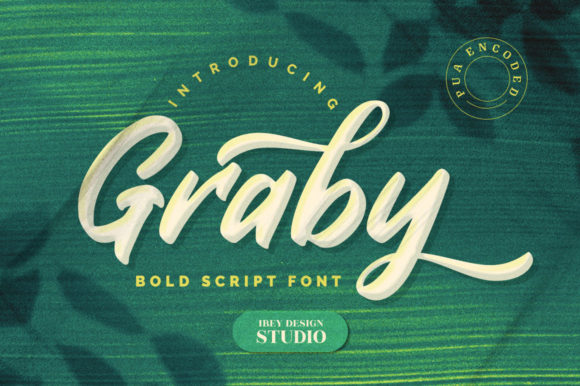
Graby Script Font
Behold Graby Script Font, the epitome of elegance and charm in the realm of typography. Step into a world where every letter dances with grace and finesse, creating a visual symphony that captivates the senses. Graby Script's enchanting strokes evoke the essence of handwritten bliss, transforming ordinary text into a work of art.
Unleash the power of Graby Script and watch your designs flourish with a touch of sophistication. Whether you're crafting heartfelt wedding invitations, expressing gratitude with thank-you cards, or imbuing life into captivating quotes, Graby Script is your trusted companion. Its versatility extends to greeting cards, logos, business cards, and any project yearning for a personal touch.
With Graby Script, the boundaries of creativity dissolve, and endless possibilities unfold. Bask in the glory of its PUA encoding, granting you effortless access to an array of glyphs and swashes. Let your imagination soar as you seamlessly integrate these elements into your designs, adding layers of visual intrigue and depth.
Elevate your designs to new heights with Graby Script, the font that breathes life into your creative vision. Experience the allure of handwritten charm, coupled with the convenience of digital precision. Graby Script is not merely a font; it's an artistic gateway to a world of beauty and inspiration.